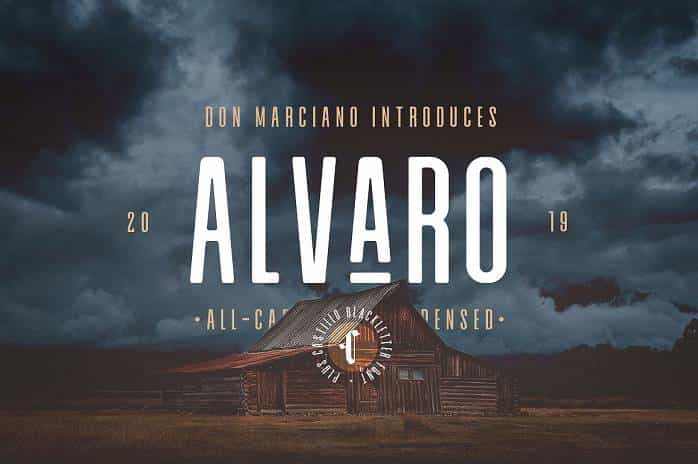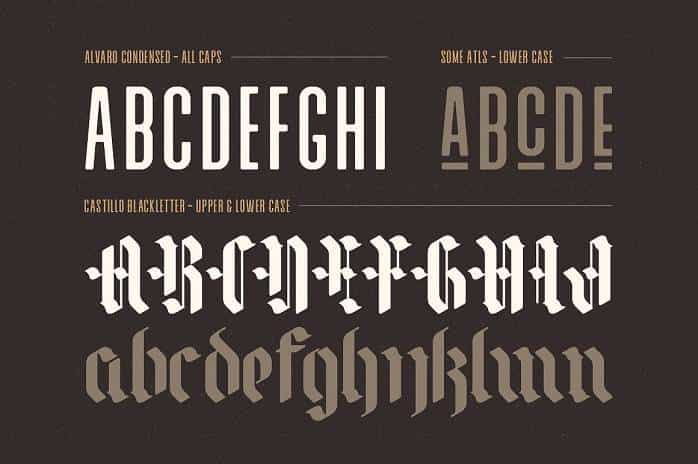
Discover Alvaro Condensed Font Duo, part of the Sans Serif Display collection—a versatile and unique font perfect for adding a personal touch to your projects. Download it for free and enjoy crafting designs with style, from invitations to social media posts. This font is available exclusively for personal use, giving you the freedom to create without limits. Unlock your creativity with Alvaro Condensed Font Duo today!
Introducing Alvaro Font. Alvaro is a simple condensed style font, created as a part of a new font family for a personal project that required a simple look, here’s the initial release of the first weight out of the oven, I want these fonts to slowly cook to perfection; Alvaro comes paired with Castillo (a blackletter font) to complete the style and at the same time, show the design possibilities